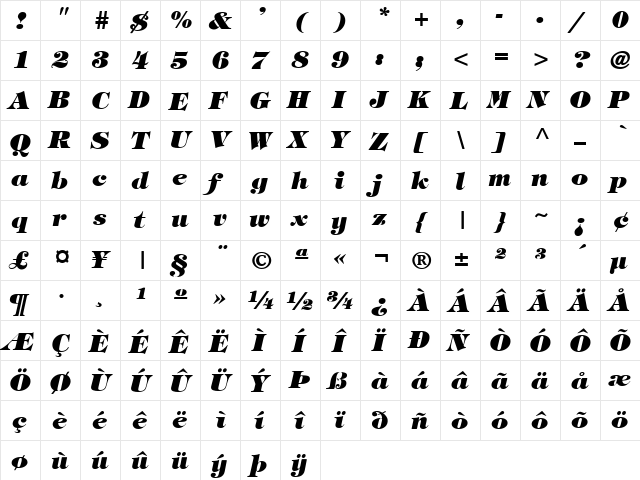
Halverson Heavy Italic
Design Context for Halverson Heavy Typeface
Halverson Heavy is a composed and adaptable typeface that performs quietly and consistently across a wide range of design contexts. Its italic angle brings a sense of urgency and motion to the letterforms.
Pro Tip: Try Halverson Heavy for annotation and caption copy alongside an upright companion — the contrast in angle creates a dynamic but ordered typographic system.